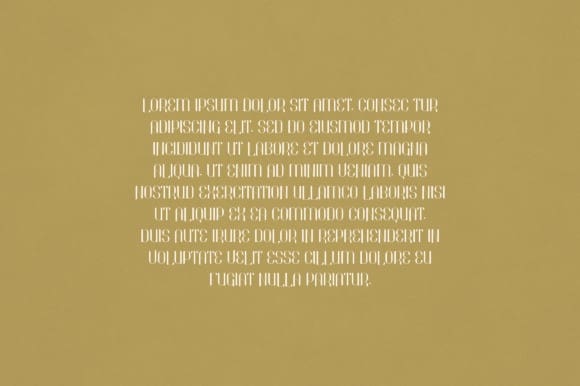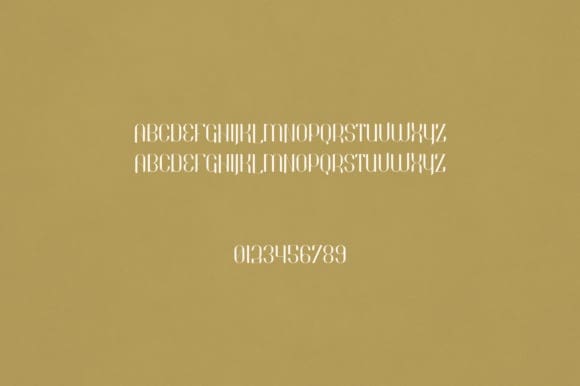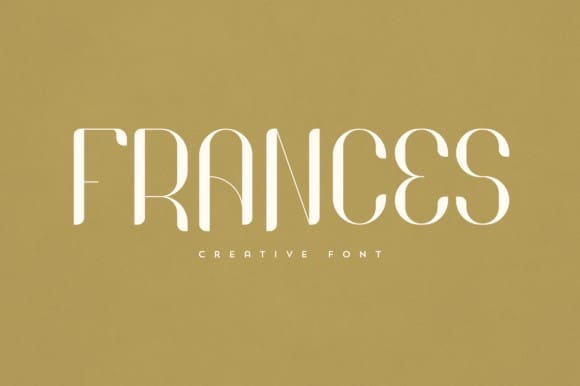
Frances Display Font
Frances Display Font, is an elegant and versatile display font that will make your typography truly unique! It will enchant every logo, branding, headline, or plain text!